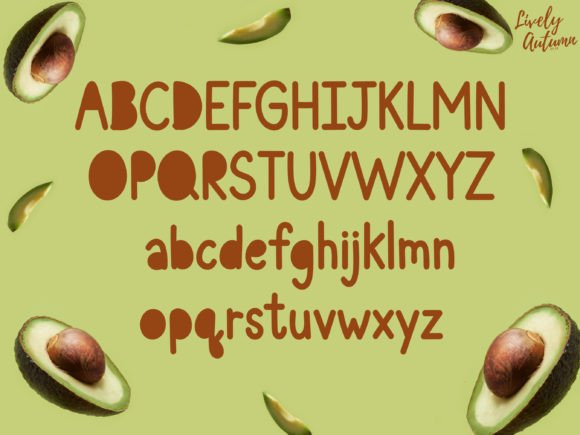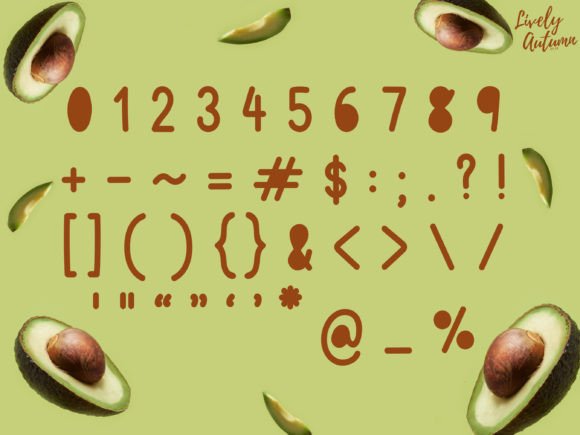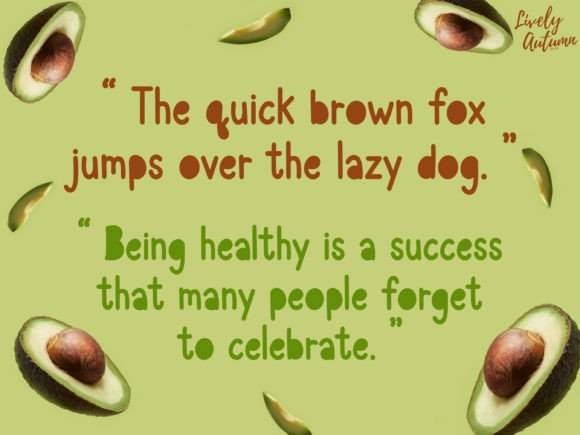
The Perfect Blend of Creativity and Style: Avocado Font
You know that moment when you’re brainstorming ideas for your next design project and everything just clicks? The words flow effortlessly, and the ideas start to swirl together in a beautiful mess of creativity? That’s exactly what happened when designers discovered the Avocado Font – a sweet and friendly handwritten font that’s as versatile as it is unique.
Designed to bring a touch of natural charm to any design, the Avocado Font is more than just a font – it’s a key to unlocking your imagination. With its organic style and endless possibilities, this font is the perfect tool for designers looking to add a personal touch to their work. Whether you’re a seasoned pro or just starting out, the Avocado Font is an invaluable asset to any design toolkit.
- Unique Characteristics: Avocado Font features a unique blend of modern and organic elements, with a distinctive curved shape and rounded edges, giving it a friendly and approachable feel.
Designer Review: Avocado Font
Overall, I think the Avocado Font is a solid choice for any design project that requires a friendly, approachable feel. ✨ The rounded edges and soft curves give the font a welcoming vibe that’s hard to resist.
Here are some of the things I like about Avocado Font:
- ✨ Wide range of weights and styles, making it easy to find the perfect fit for your project
- ✨ Highly legible, even at small font sizes
- ✨ Unique and playful feel that sets it apart from more traditional fonts
- ⚠️ Some of the weights may feel a bit too rounded or blobby for certain applications
- ⚠️ Not as versatile as some other fonts, which may limit its use in more formal or technical contexts
- ⚠️ May not be the best choice for projects that require a lot of fine detail or intricate typography
Overall, I think the Avocado Font is a great choice for projects that need a friendly, approachable feel. It’s not perfect, but it’s a solid option that can add a lot of character to your designs.
Getting the Most Out of Avocado Font
To get the most out of Avocado Font, use it for:
- Health and wellness marketing
- Home decor and lifestyle design
Remember to use Avocado Font consistently throughout your design to create a cohesive look.